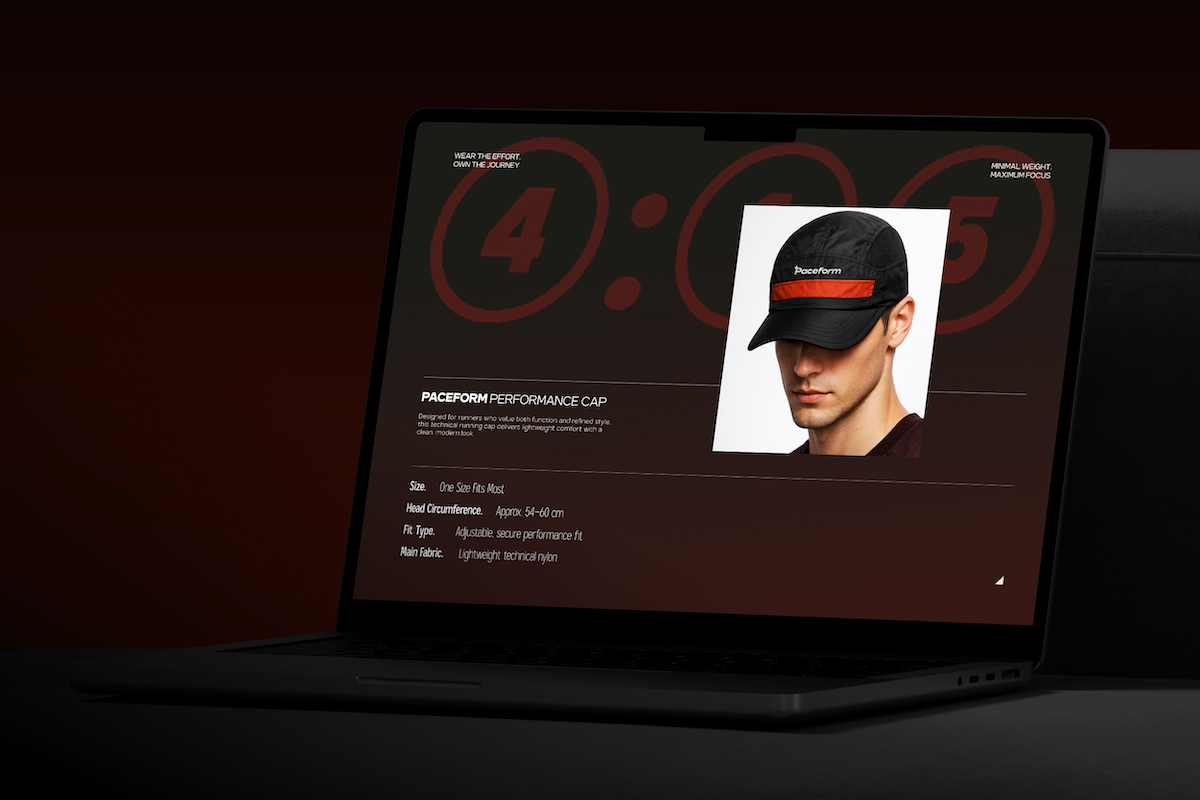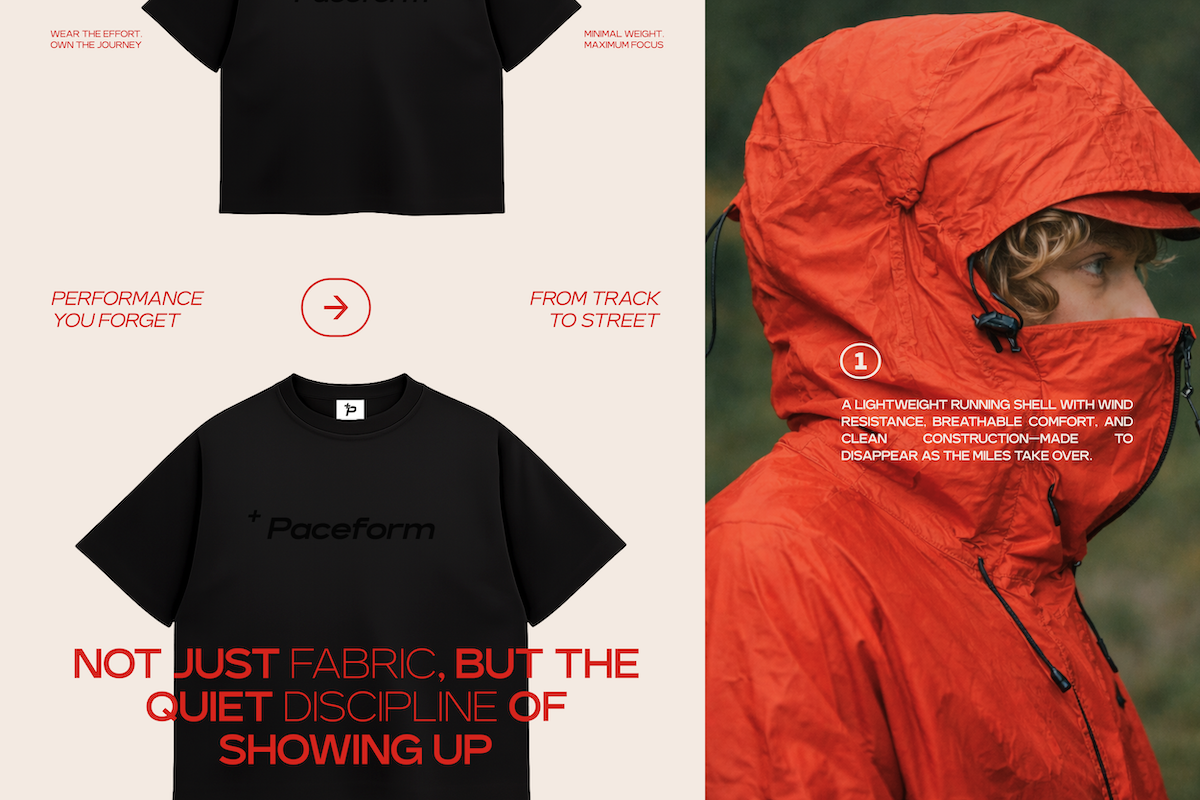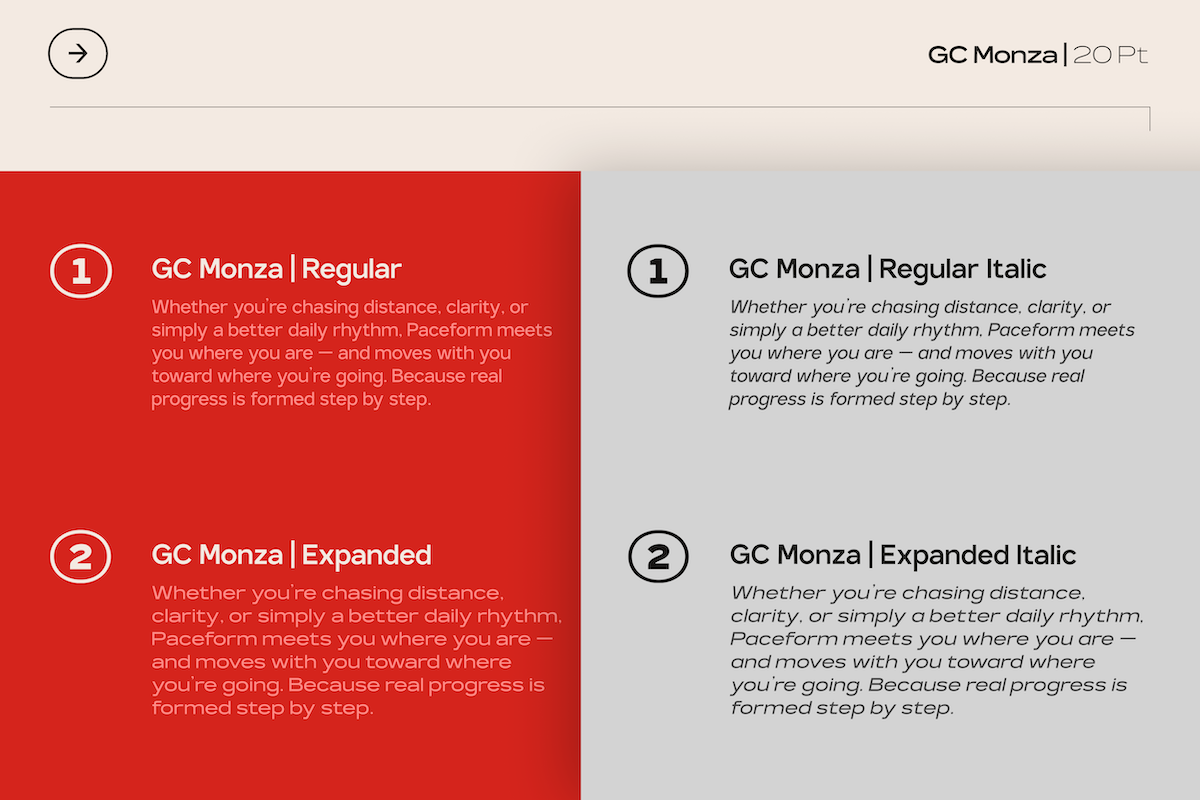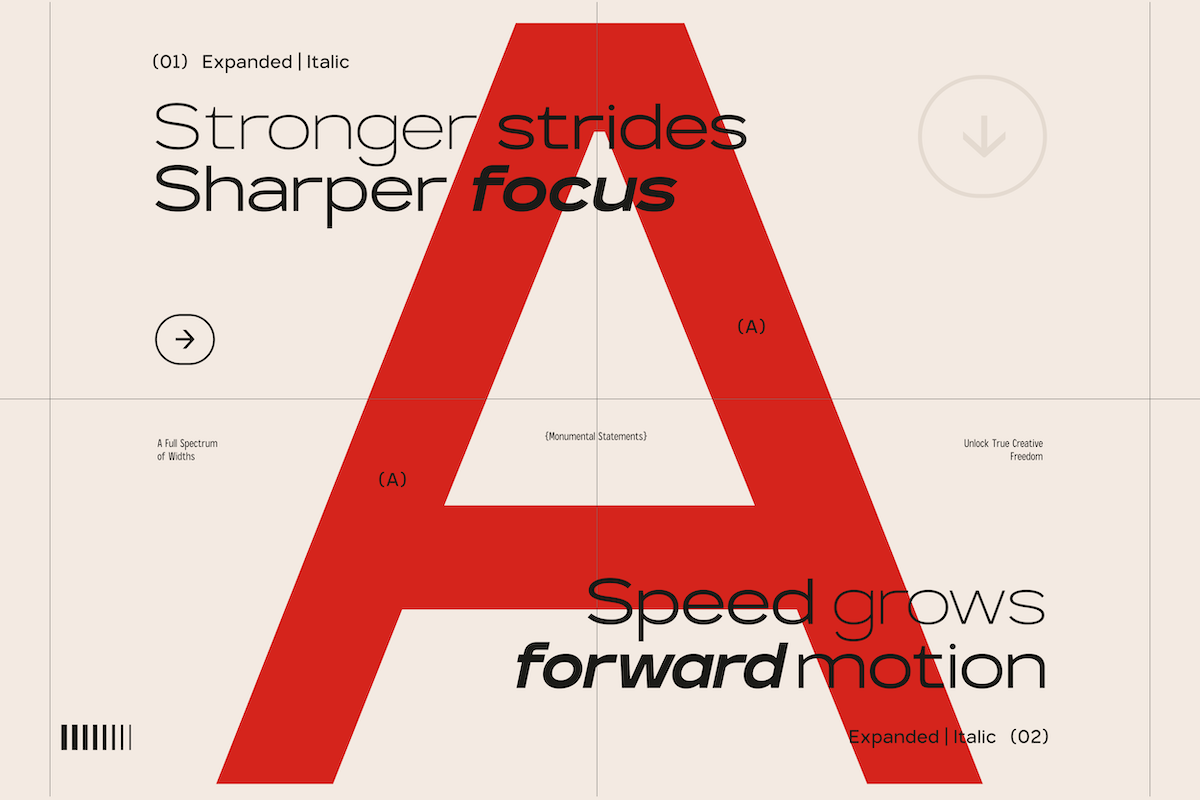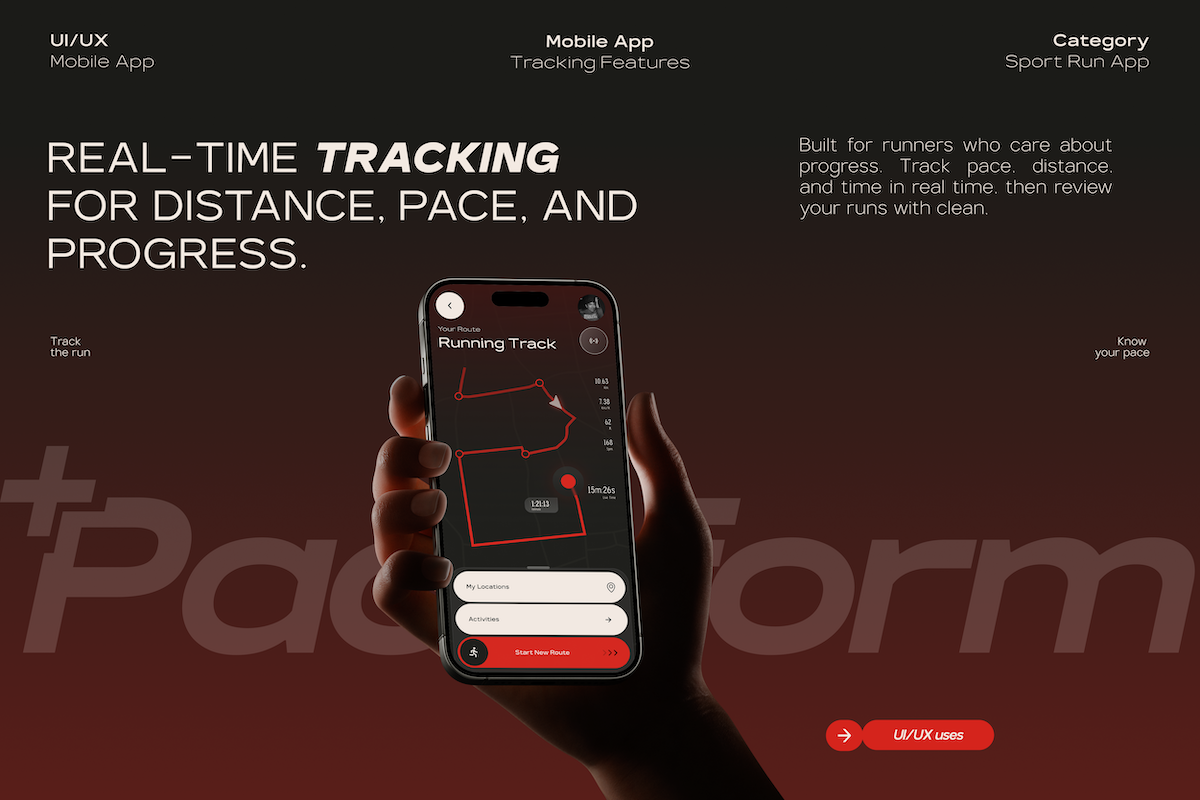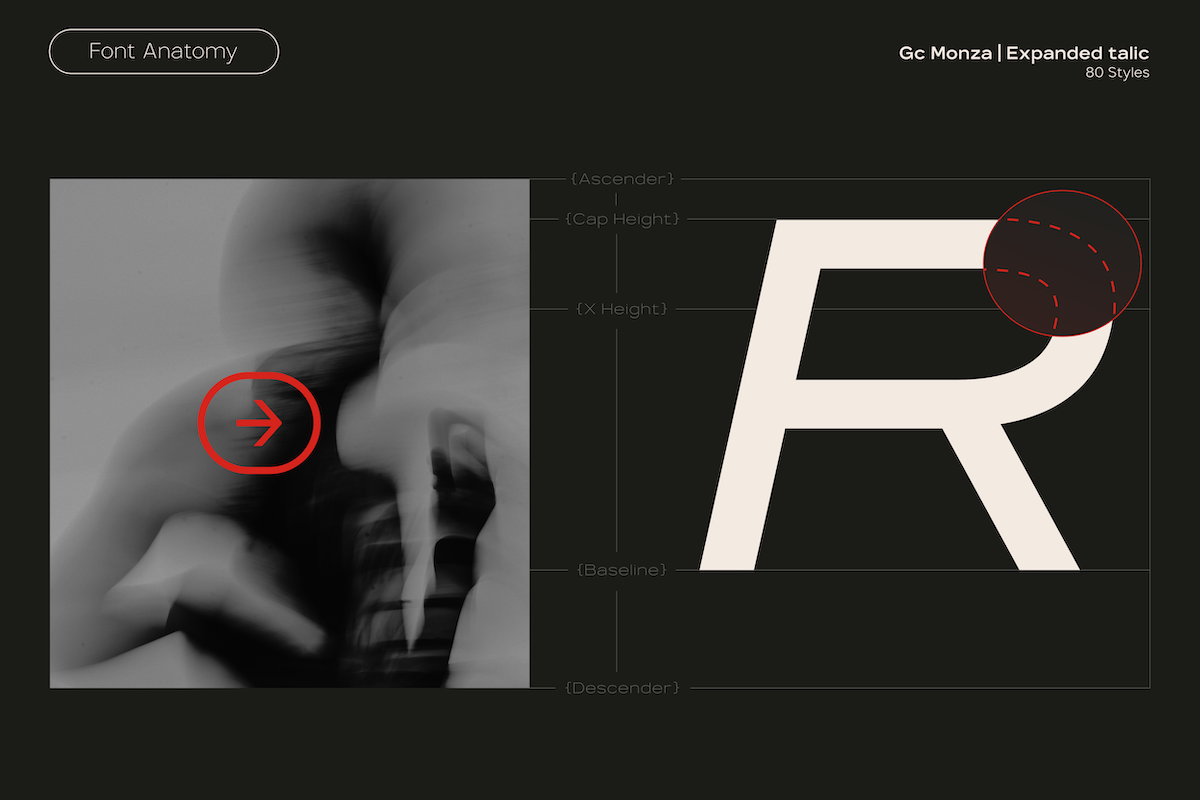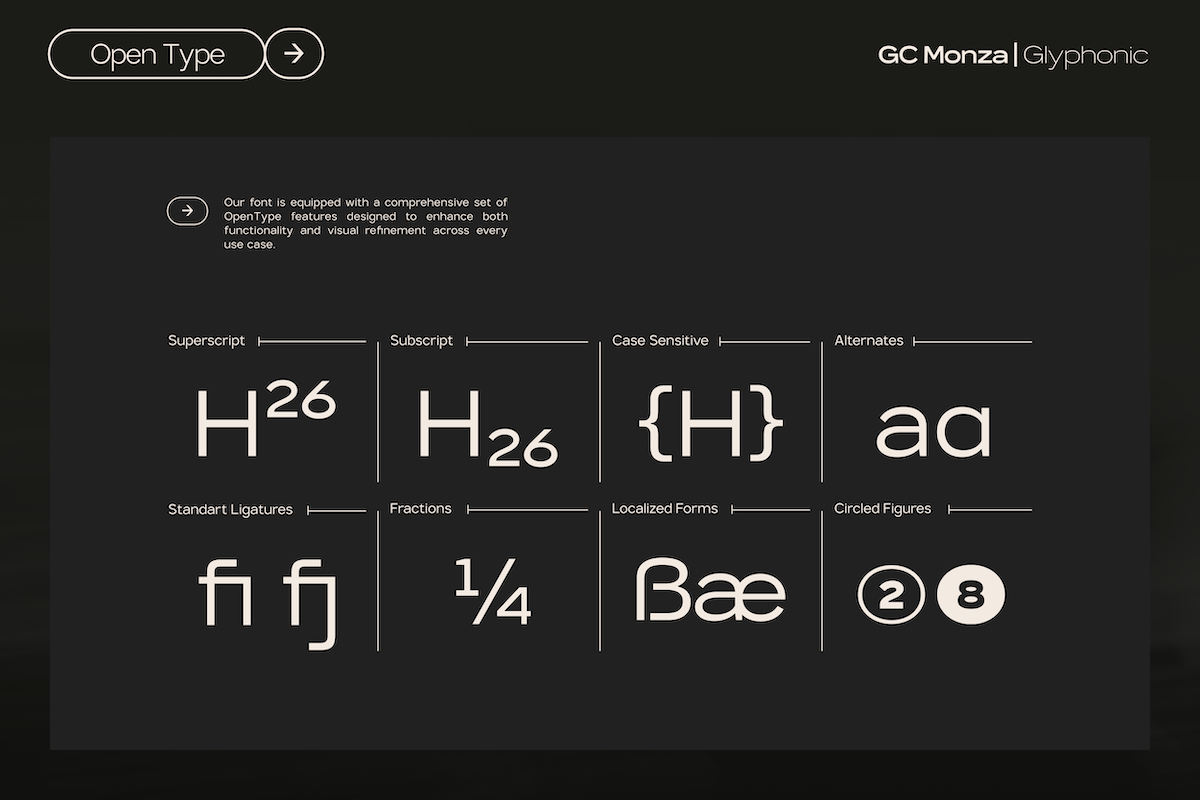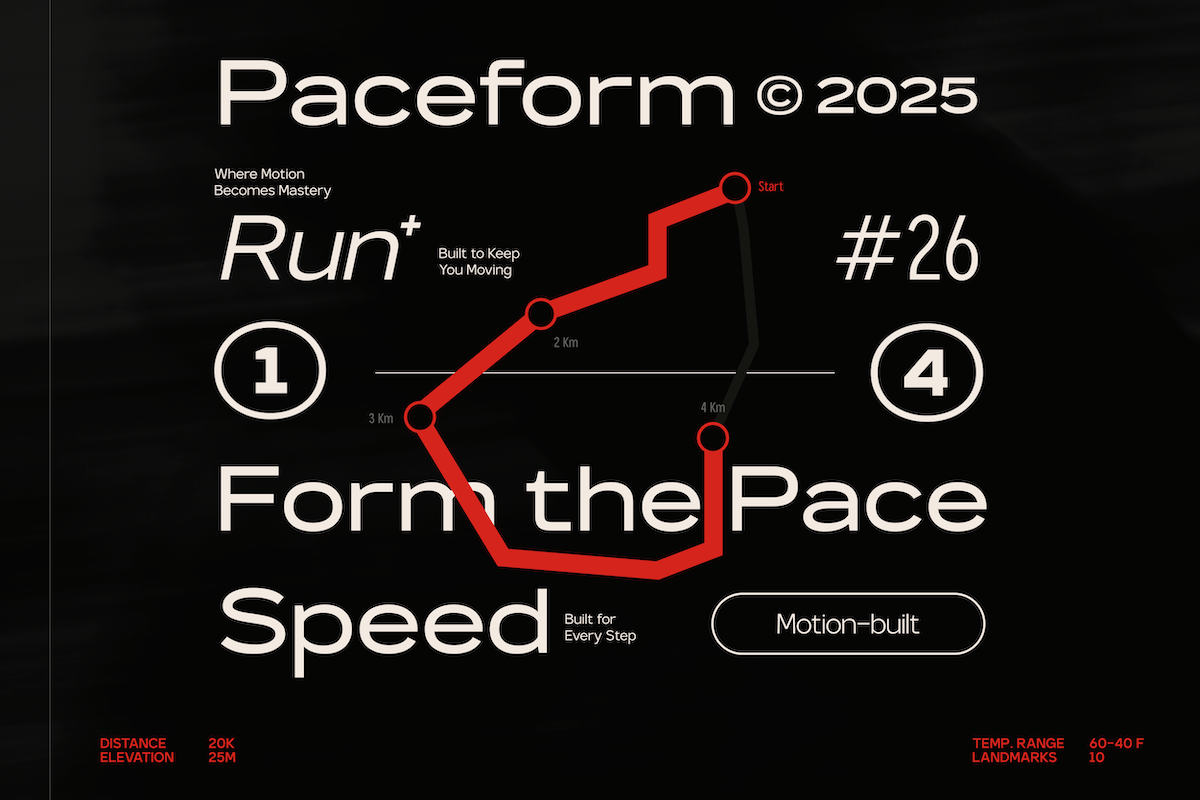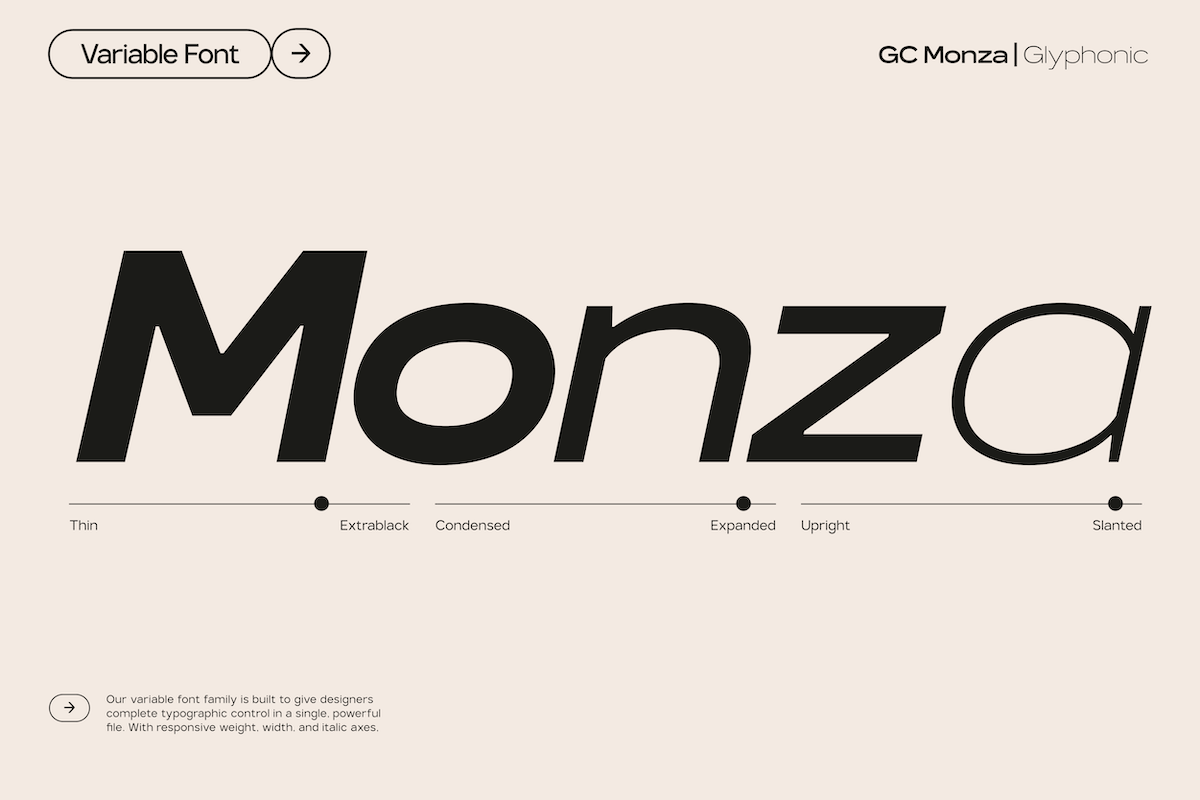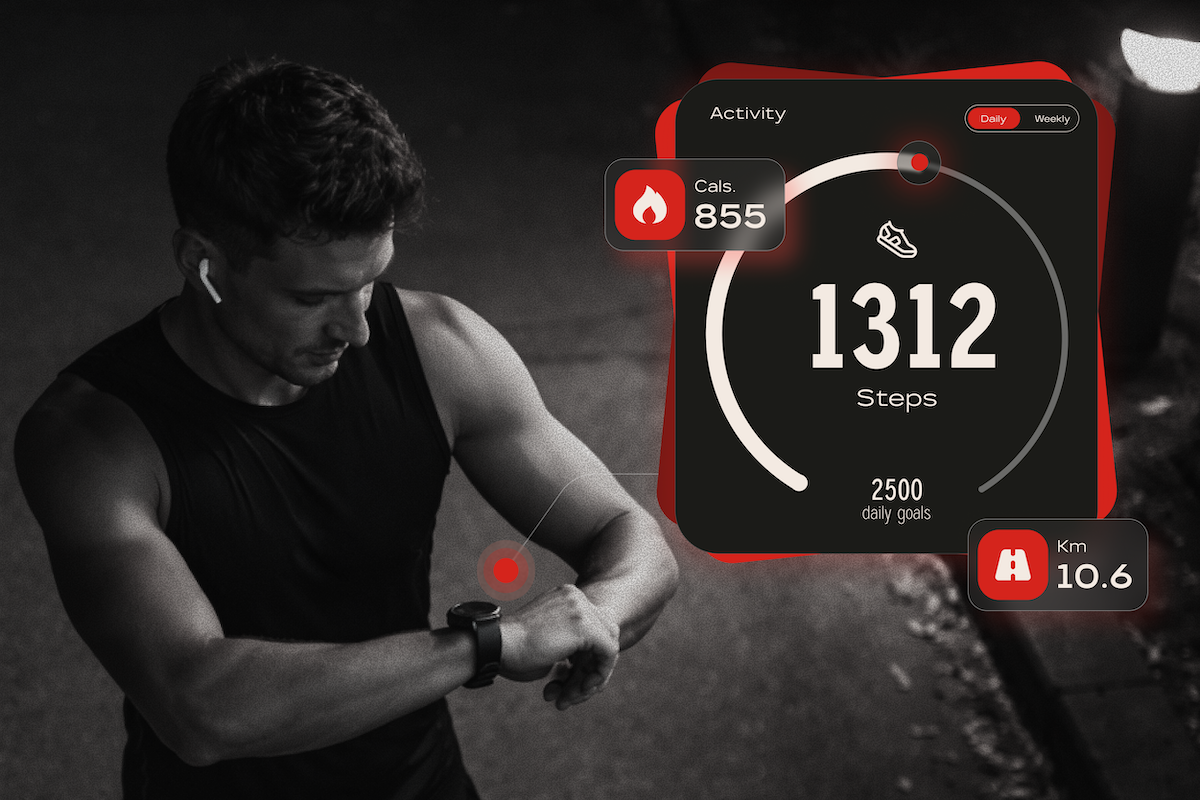
GC Monza - Complex Modern Sans
GC Monza – Complex Modern Sans is a contemporary sans serif typeface engineered for precision, versatility, and strong visual character. Designed with a refined structural system and modern detailing, it balances clarity with subtle complexity—creating a distinctive voice that feels both technical and expressive.
With clean construction, confident strokes, and carefully calculated proportions, GC Monza delivers exceptional readability across branding, editorial design, corporate identity, packaging, UI systems, and digital interfaces. Its modern personality makes it ideal for projects that demand structure, sophistication, and dynamic flexibility.
GC Monza is built as a complete and comprehensive type family, offering an extensive width system to support everything from compact layouts to bold, spacious compositions.
Complete Family Includes:
- Sans Regular + Italic
- Semi Condensed + Italic
- Condensed + Italic
- Semi Expanded + Italic
- Expanded + Italic
- Multiple Weights Across All Widths
This full-spectrum width system allows designers to create strong hierarchy, consistent branding, and highly adaptable typographic systems across print and digital environments.
- Structured Modern Construction
Experience total flexibility, structural precision, and modern clarity with GC Monza – Complex Modern Sans.